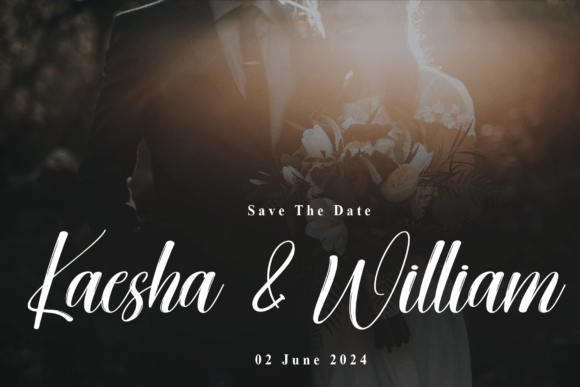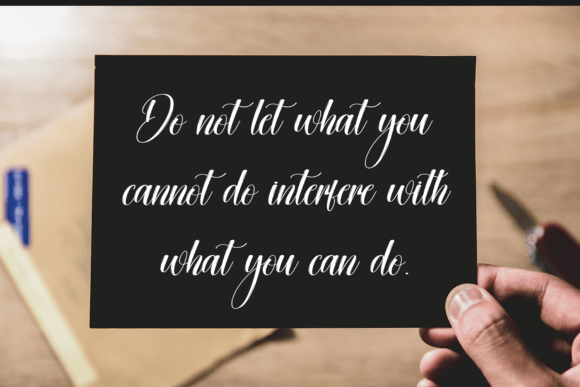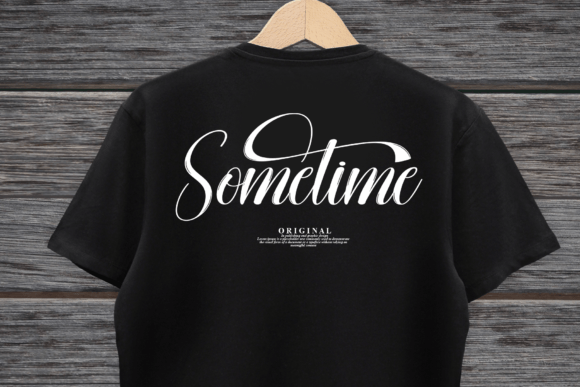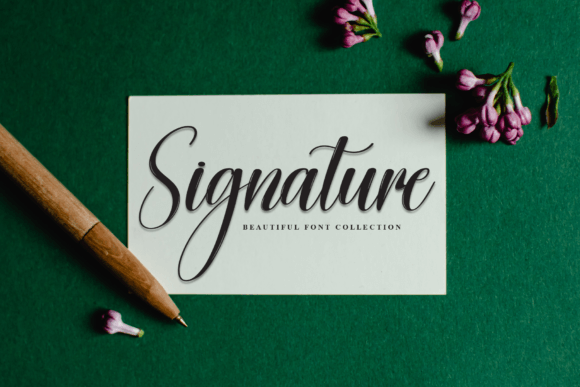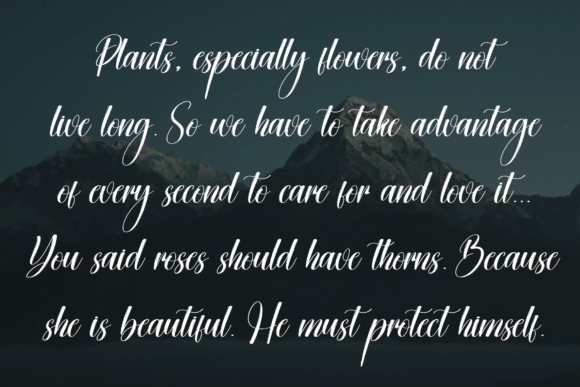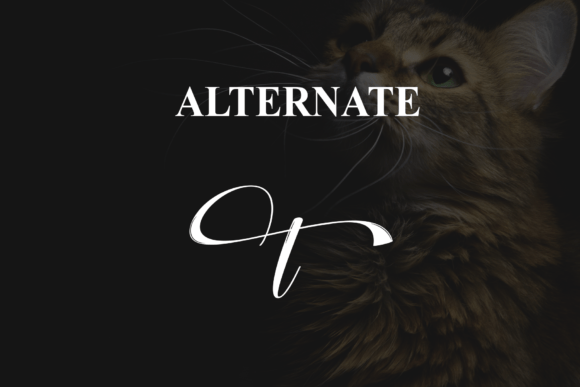
Introducing Creature Font: The Sweet and Friendly Handwritten Font for Your Creative Projects
Are you tired of using the same old fonts for your designs? Look no further! Creature Font is a beautiful, handwritten font that is sure to add a touch of personality to your projects. With its natural and unique style, Creature Font is incredibly versatile and can be used for a wide range of designs, from crafting and scrapbooking to branding and advertising.
The Characteristics of Creature Font
Creature Font is a sweet and friendly handwritten font that is designed to make your designs stand out. Its natural and unique style gives it a personal touch that is hard to find in digital fonts. The font has a playful and approachable feel, making it perfect for designs that require a friendly and inviting tone.
One of the best things about Creature Font is its versatility. It can be used for a wide range of projects, from:
• Crafting and scrapbooking
• Branding and advertising
• Signage and display
• Packaging and product design
• Digital media and social graphics
The Benefits of Using Creature Font
So, why choose Creature Font for your next project? Here are just a few benefits of using this amazing font:
• Unique and eye-catching: Creature Font is a one-of-a-kind font that is sure to grab attention and make your designs stand out.
• Versatile: The font can be used for a wide range of projects, from crafting and scrapbooking to branding and advertising.
• Easy to read: Despite its unique and playful style, Creature Font is incredibly easy to read, making it perfect for body text and headlines.
• Customizable: With its wide range of characters and symbols, Creature Font can be customized to fit your unique design needs.
Tips for Using Creature Font in Your Designs
Now that you know a little bit about Creature Font, here are some tips for using it in your designs:
• Pair it with other fonts: Creature Font pairs well with a wide range of fonts, from serif and sans serif fonts to script and display fonts.
• Use it for headlines and body text: Creature Font is perfect for both headlines and body text, making it a great all-around font for your designs.
• Experiment with colors and textures: Creature Font looks great in a wide range of colors and textures, so don’t be afraid to get creative and try out different combinations.
• Add embellishments: With its playful and whimsical style, Creature Font is the perfect font to add embellishments and decorations to your designs.
In conclusion, Creature Font is a sweet and friendly handwritten font that is perfect for designers and crafters looking to add a touch of personality to their projects. With its natural and unique style, Creature Font is incredibly versatile and can be used for a wide range of designs. Whether you’re working on a crafting project, a branding campaign, or a digital graphic, Creature Font is sure to make your designs stand out.